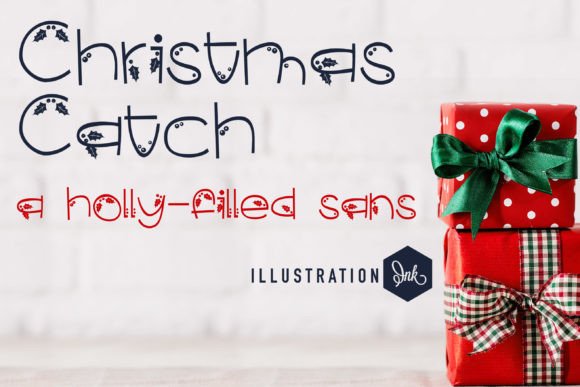
The Magical World of Christmas Catch Font
It’s that time of the year again when designers and crafters are on the lookout for the perfect font to make their holiday projects shine. I still remember the year I was working on a Christmas card design for a client, and I just couldn’t find the right font to capture the festive spirit. The project was stalled, and I was on the verge of giving up. That’s when I stumbled upon Christmas Catch Font, and it completely transformed my design. In this article, I’ll share my experience with this beautiful font, its features, and how you can make the most of it in your designs.
A Personal Review of Christmas Catch Font
Christmas Catch Font is a fun and festive handwritten decorative font that has a modern yet whimsical style. Here are some things I love about it:
- ✨ Unique and eye-catching design that’s perfect for holiday projects
- ✅ Easy to read and understand, even in smaller sizes
- 🎉 Supports OpenType features, glyphs, and stylistic alternates for added versatility
While Christmas Catch Font is an amazing addition to any design project, there are a few quirks to be aware of:
- 🤔 Limited character set compared to some other fonts on the market
- ⚠️ May not be suitable for body text due to its decorative nature
The Story Behind Christmas Catch Font
Christmas Catch Font was designed by a team of creatives who wanted to capture the magic and wonder of the holiday season. Inspired by traditional holiday decorations and modern design trends, they created a font that’s both festive and versatile. The result is a beautiful and unique font that’s perfect for designers, crafters, and hobbyists looking to add a touch of holiday cheer to their projects.